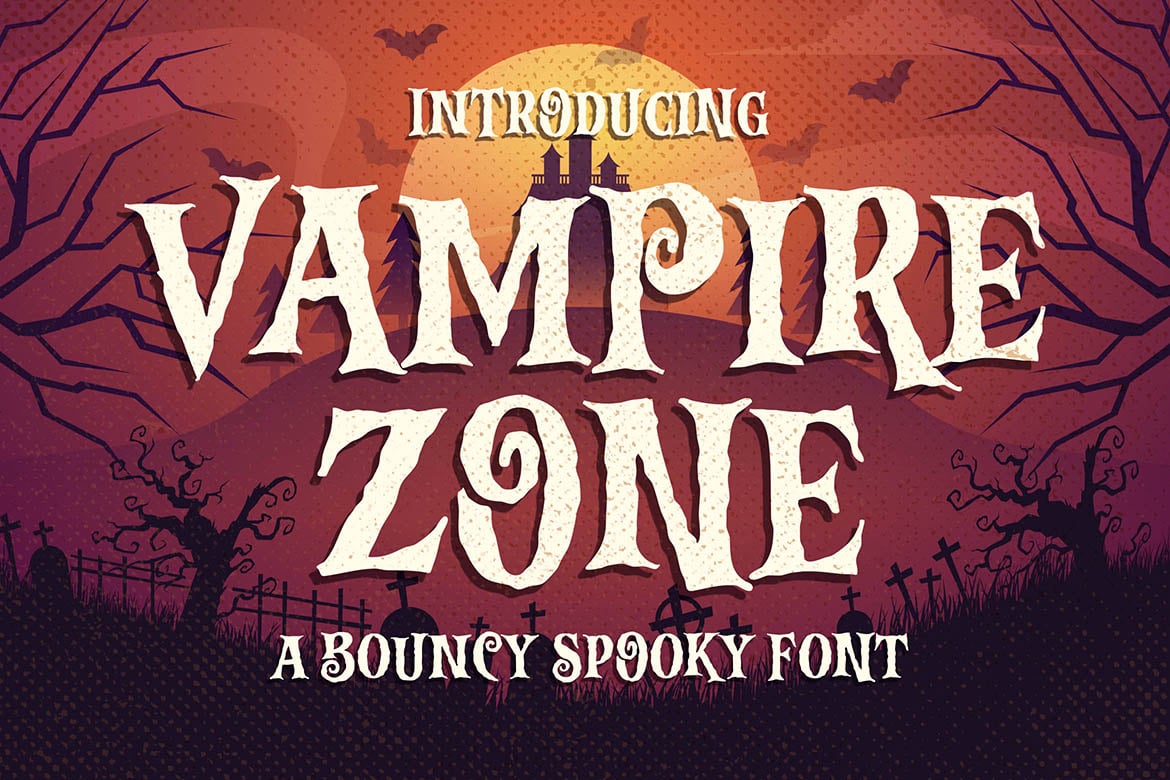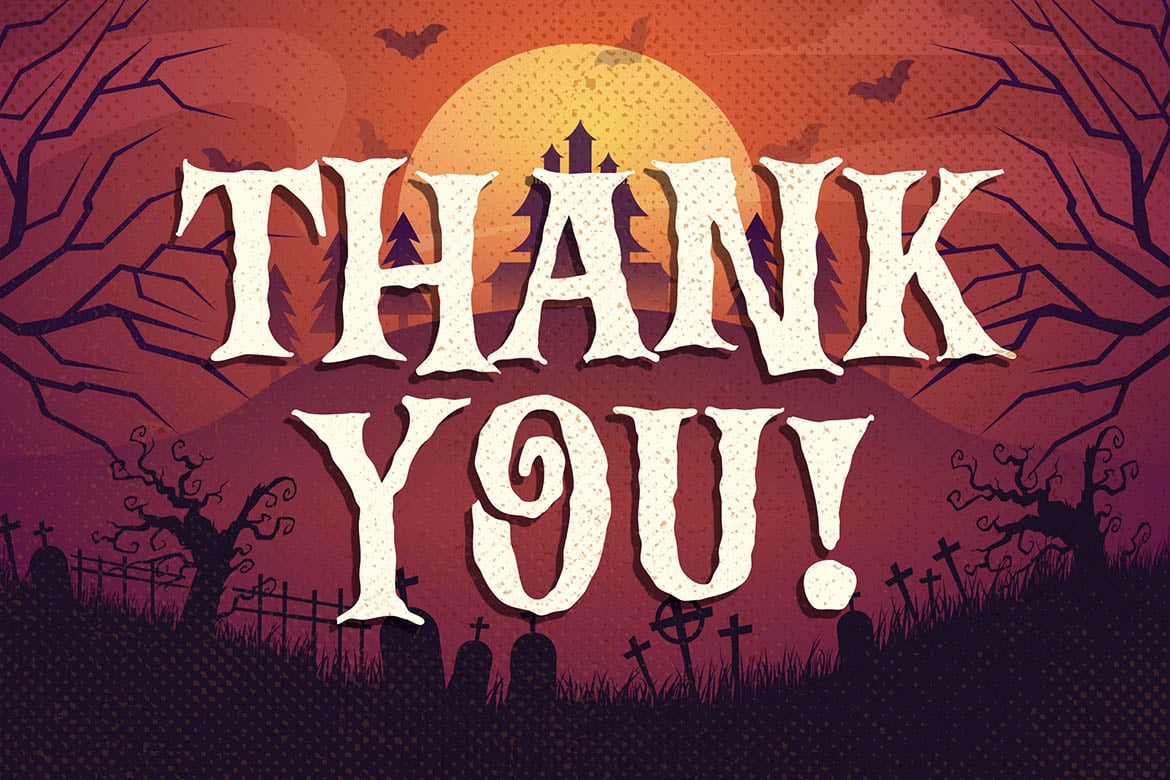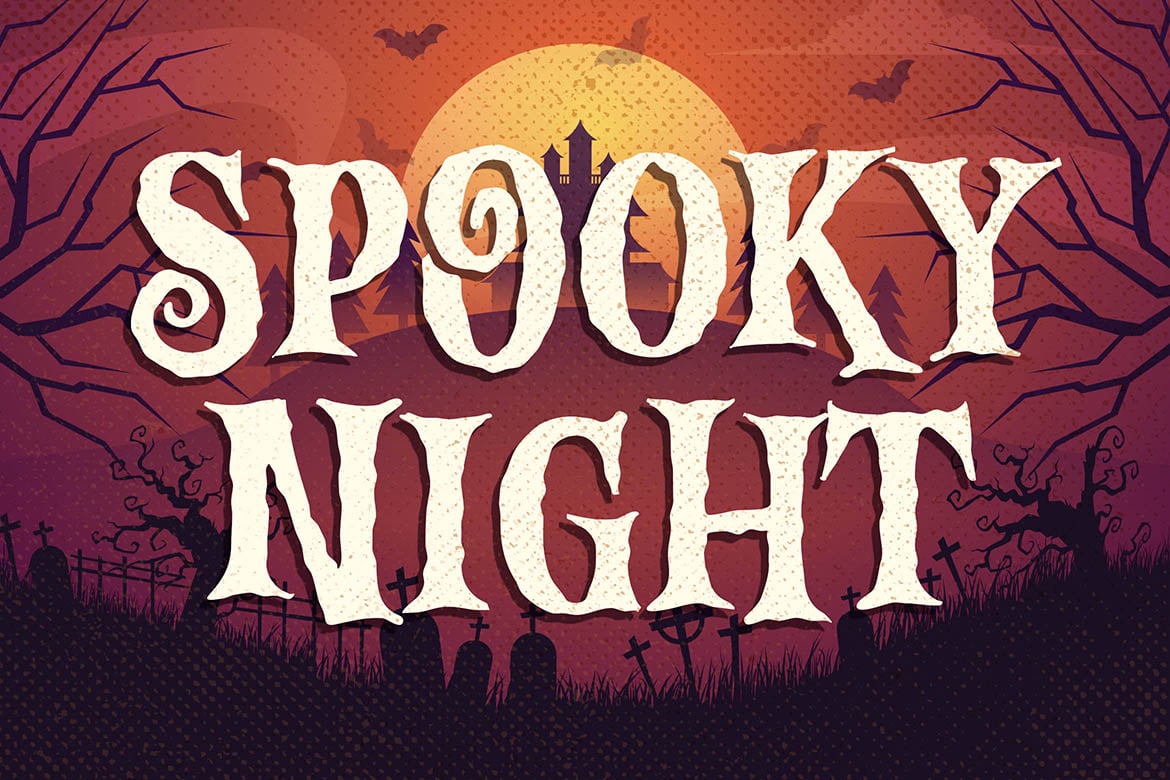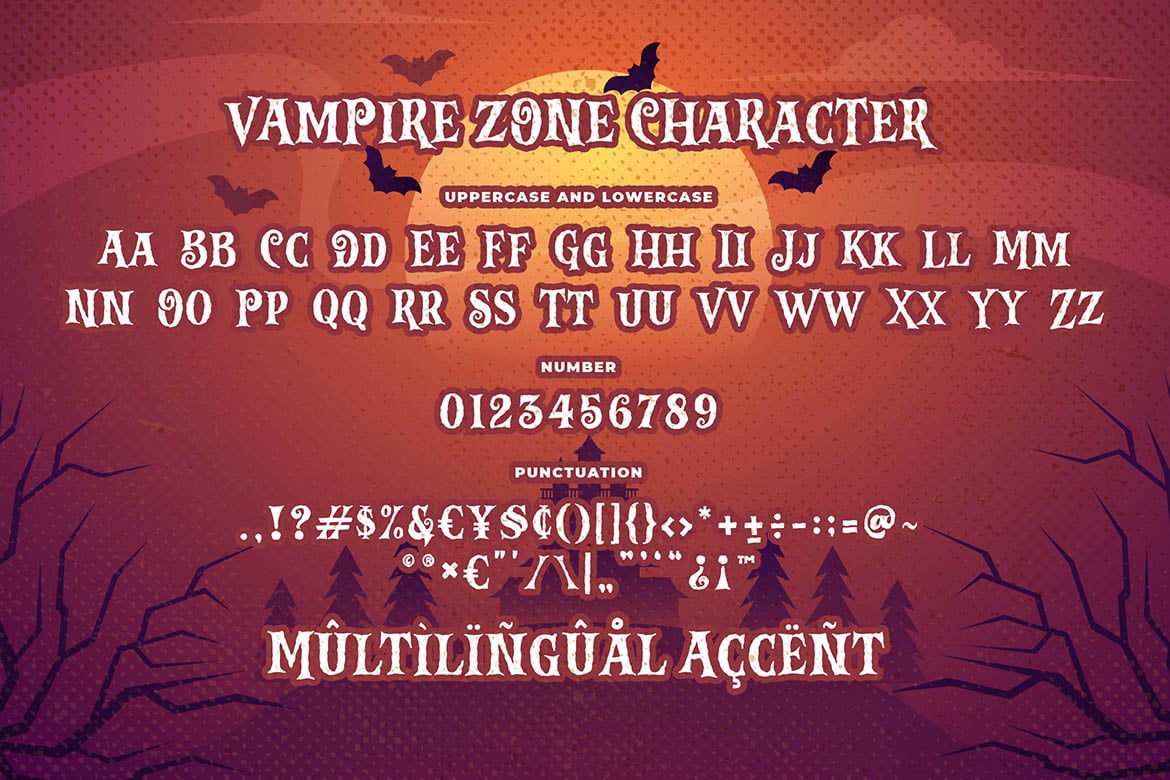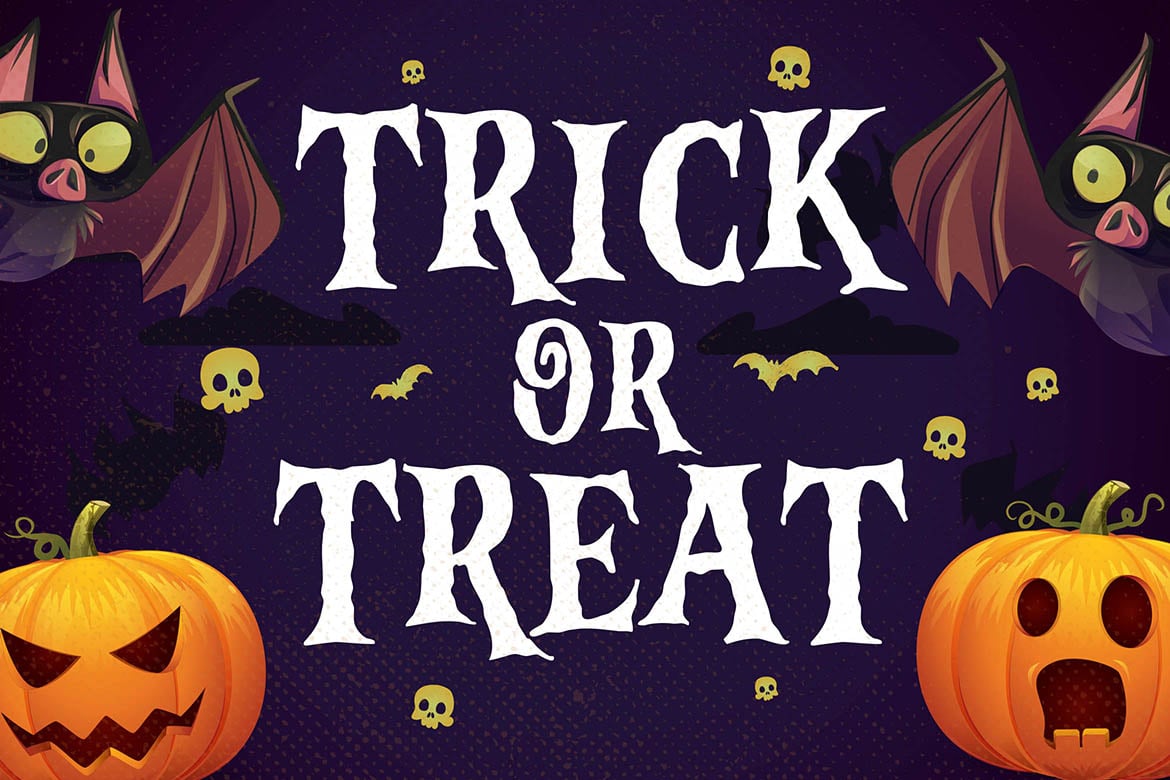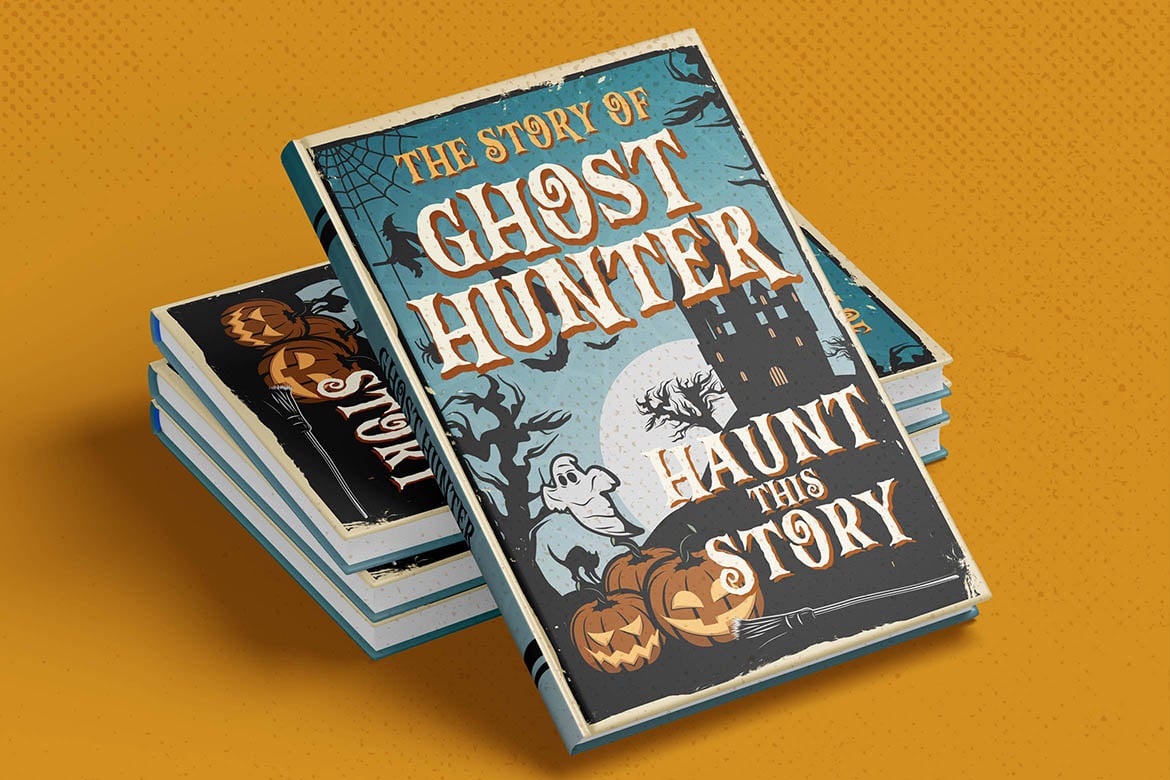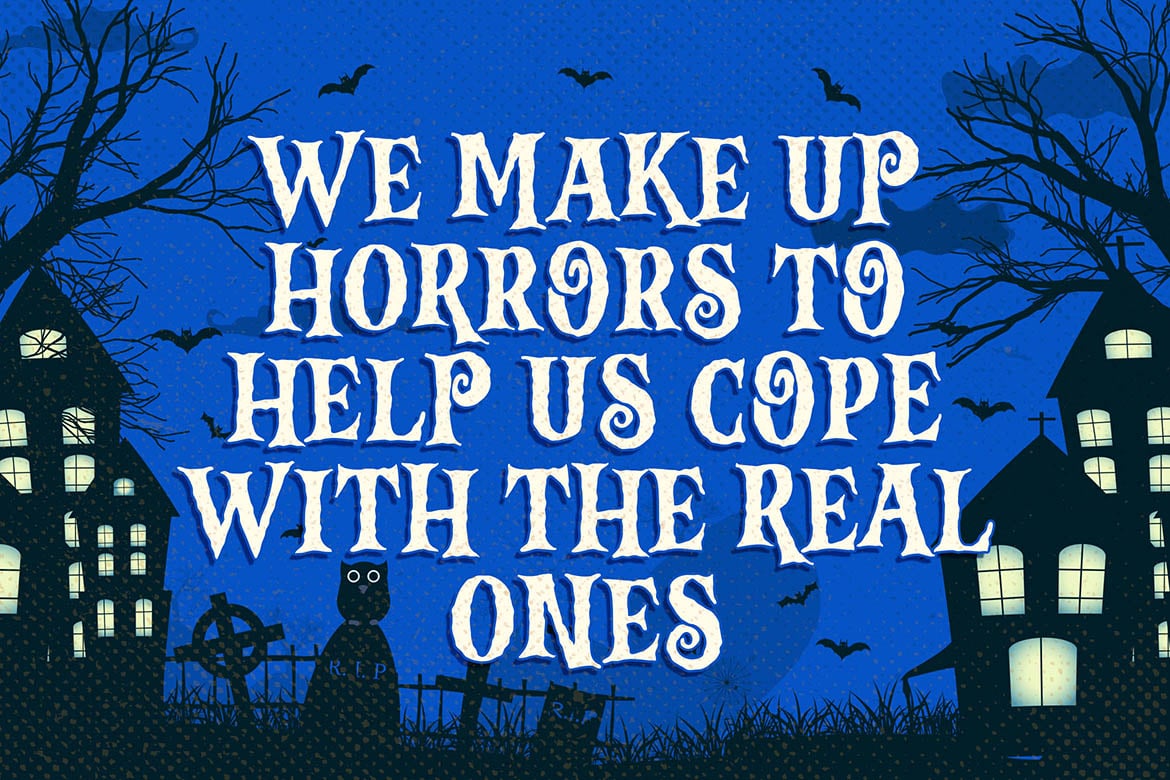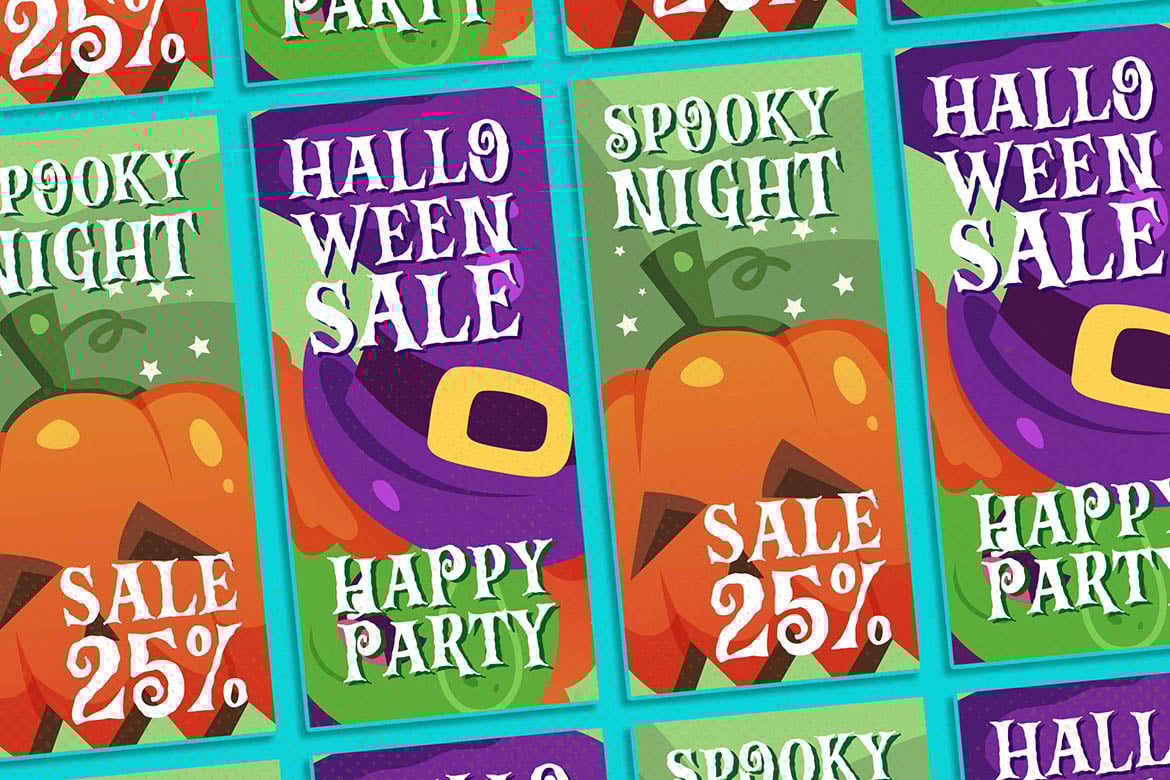
Vampire Zone a Horror Spooky Scary Halloween Font
Introducing of our new product the name is Vampire Zone a Horror Font, Vampire Zone inspired by Bouncy horror style with a fun theme very good for horror, scary, spooky and halloween theme design.